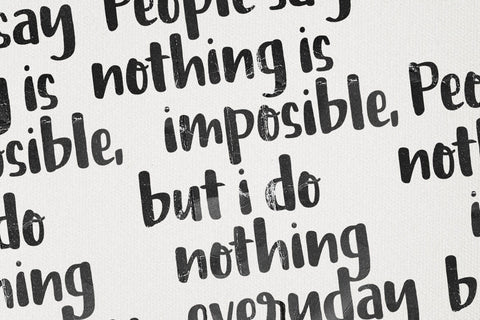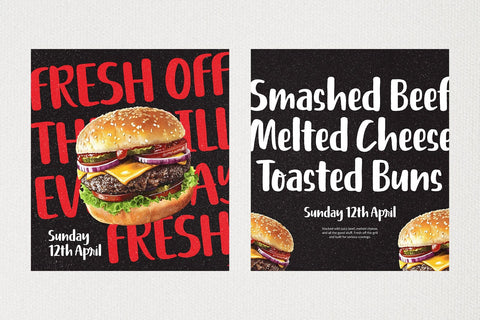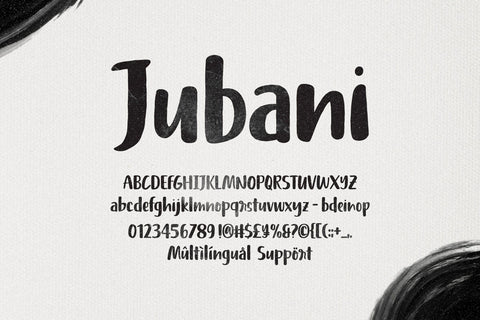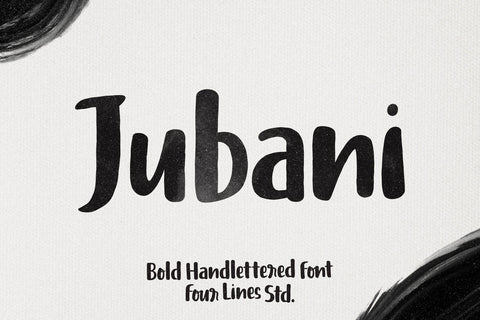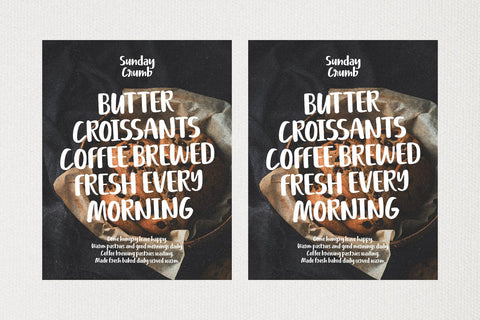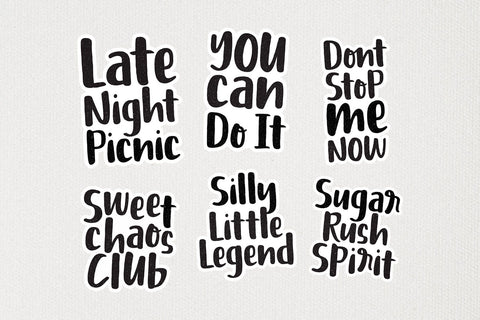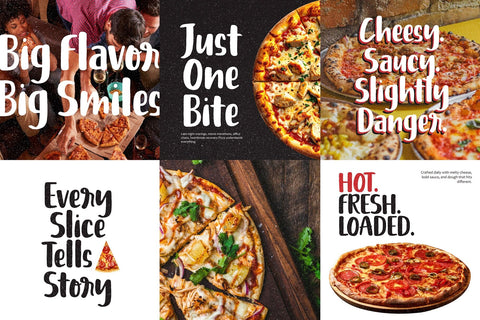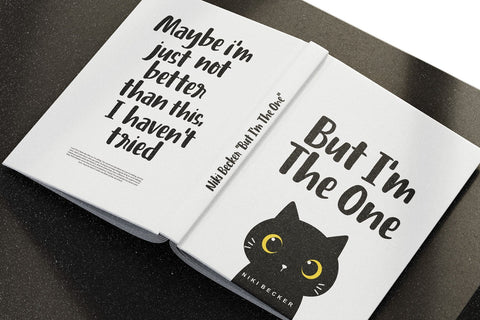
Jubani – Bold Handlettered Font
Jubani is a bold handlettered font with a natural, rhythmic flow and plenty of character. Featuring smooth curves and harmonious organic details, this font brings a warm, relaxed, and expressive feel to every word.
Designed to stand out while maintaining a friendly handwritten touch, Jubani is perfect for logos, branding, posters, product packaging, social media, merchandise, and various display designs that aim to feel more lively and energetic.